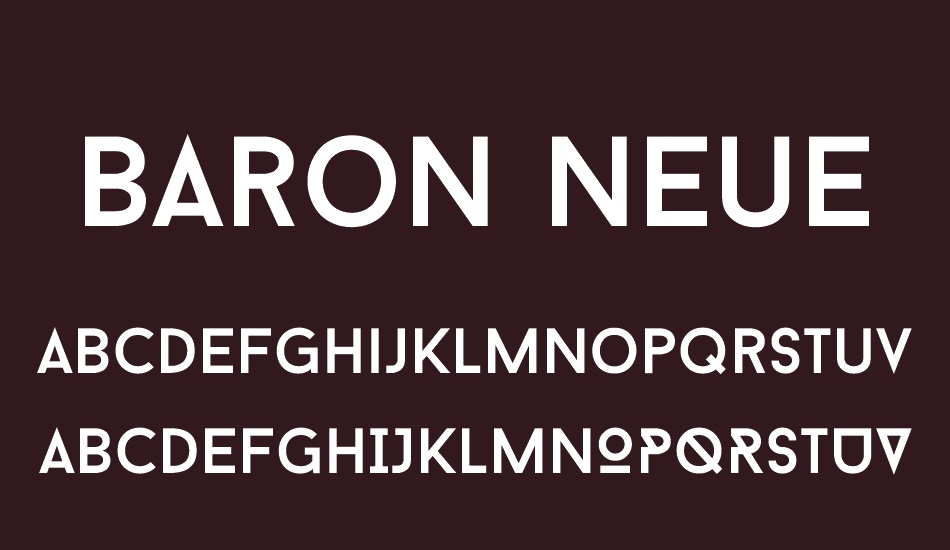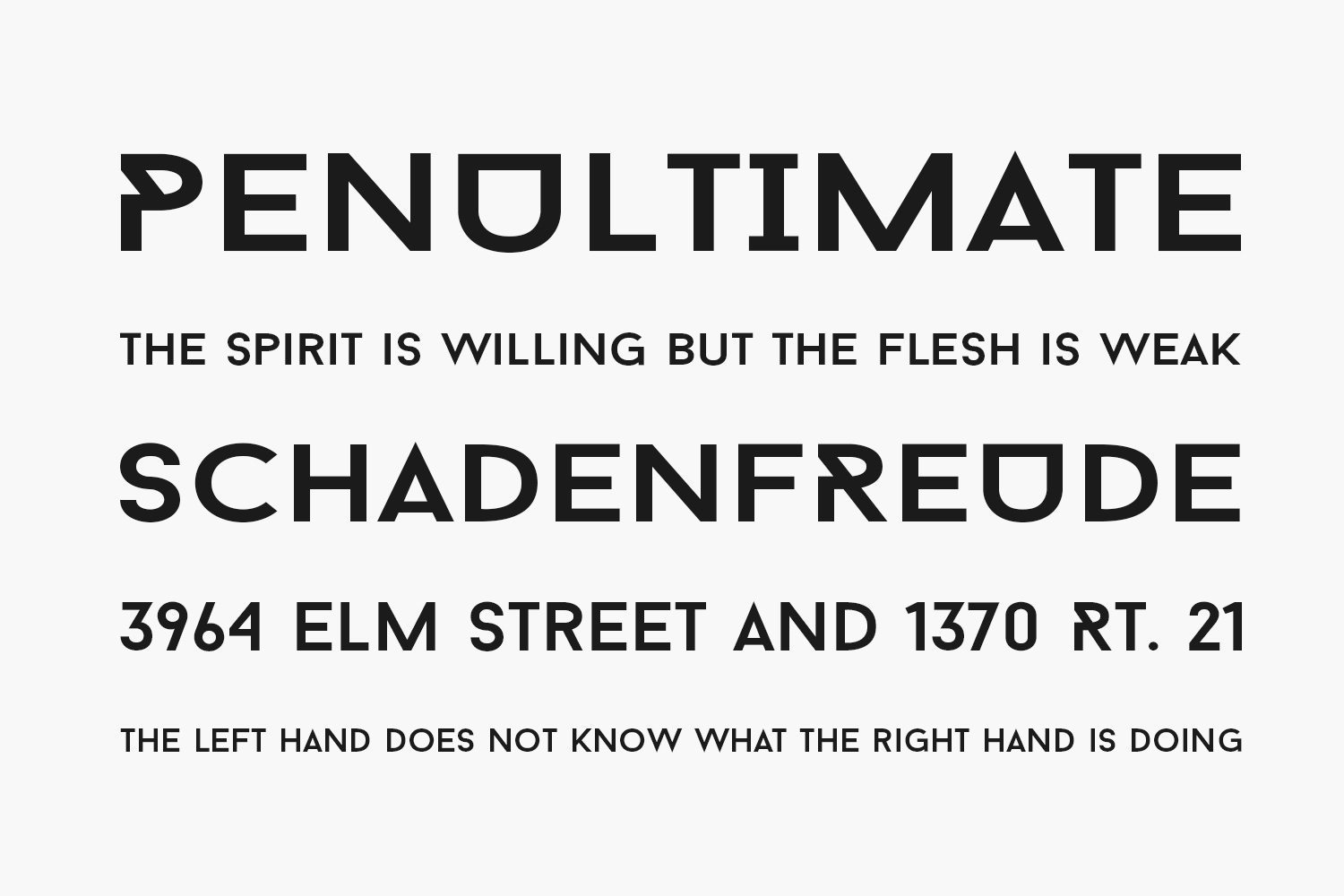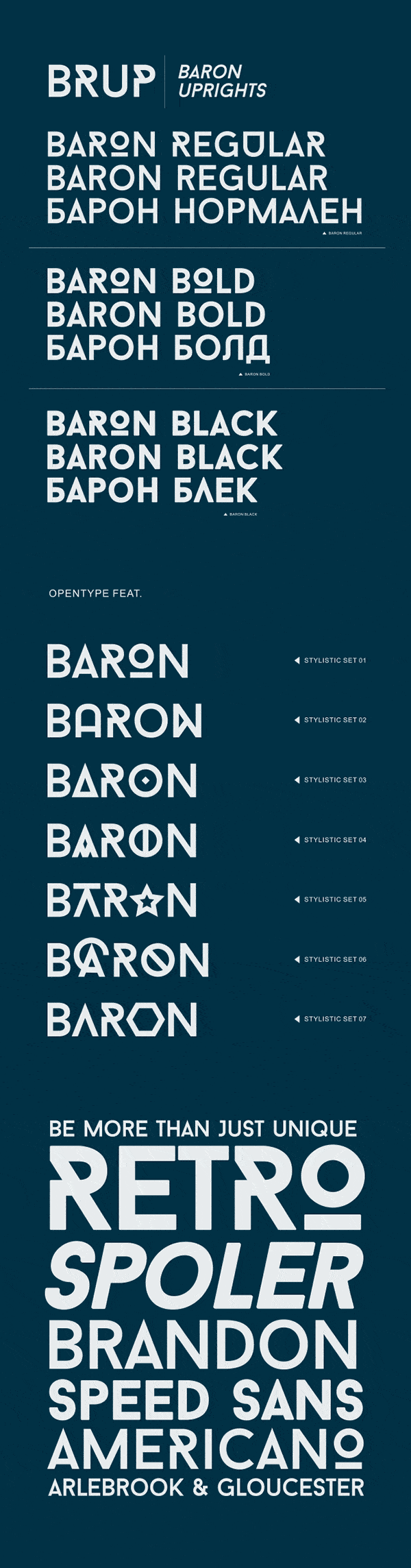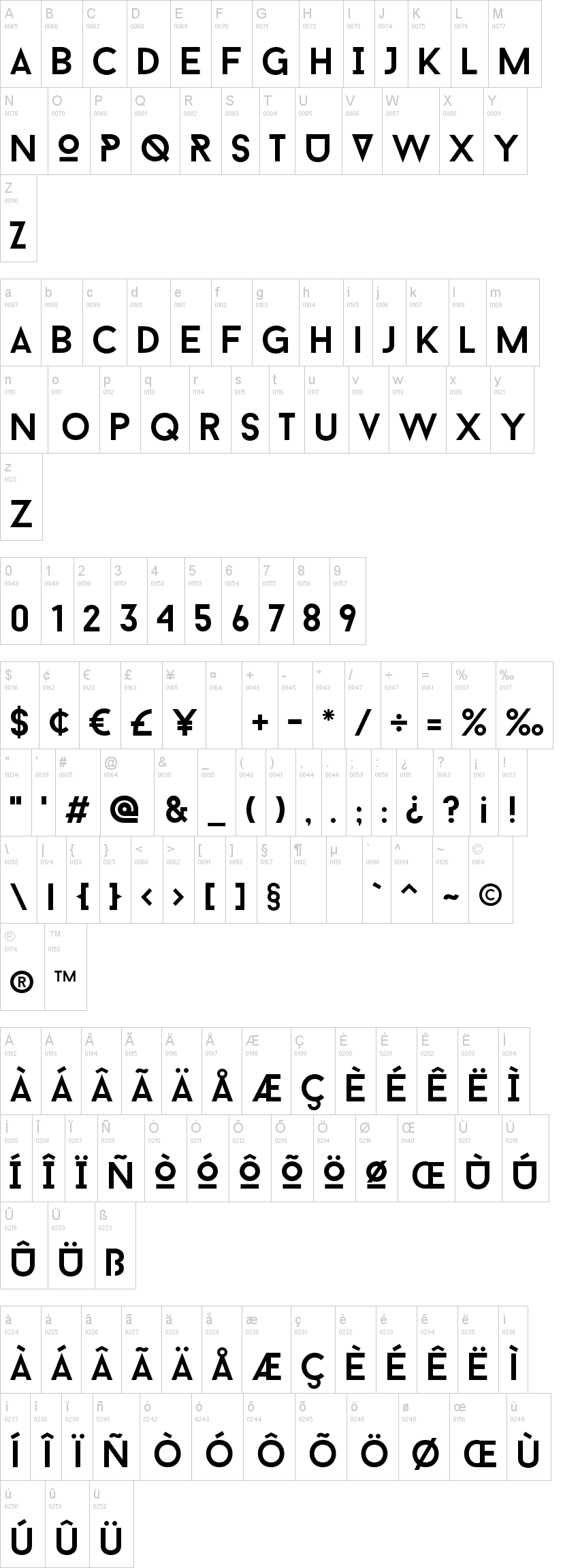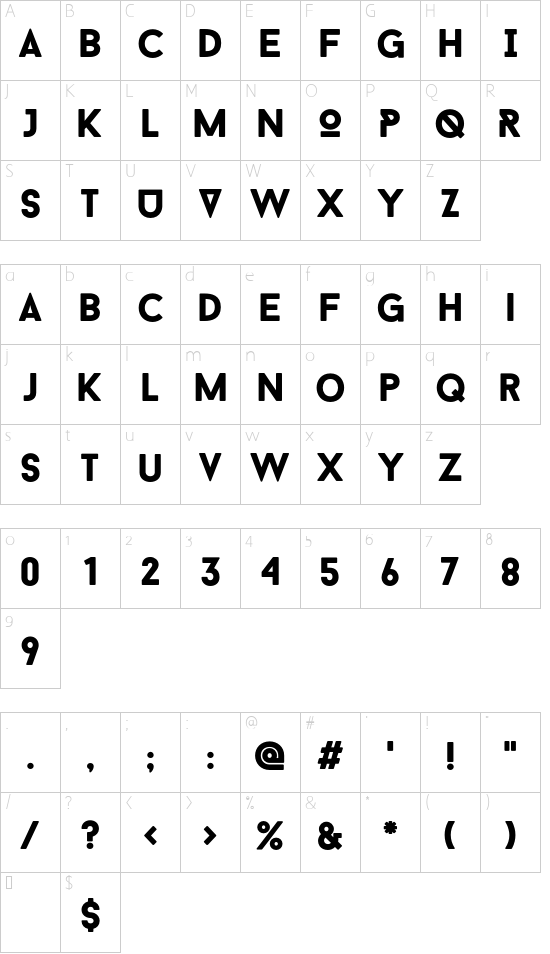
Baron Neue Font
Baron Neue Font - Baron is an free uppercase display typeface inspired by the classic sans serif font. Web baron neue regular font is a font style part of the baron neue type family (6 font styles). Web only for personal use! Font typography is the silent. Baron is an free uppercase display typeface inspired by the classic sans serif font families. Web only for personal use!
Baron is an free uppercase display typeface inspired by the classic sans serif font. Web only for personal use! Baron is an free uppercase display typeface inspired by the classic sans serif font families. Font typography is the silent. Web baron neue regular font is a font style part of the baron neue type family (6 font styles). Web only for personal use!
Baron is an free uppercase display typeface inspired by the classic sans serif font. Web baron neue regular font is a font style part of the baron neue type family (6 font styles). Font typography is the silent. Web only for personal use! Baron is an free uppercase display typeface inspired by the classic sans serif font families.
Web only for personal use! Baron is an free uppercase display typeface inspired by the classic sans serif font. Font typography is the silent. Web only for personal use! Baron is an free uppercase display typeface inspired by the classic sans serif font families.
Font typography is the silent. Web baron neue regular font is a font style part of the baron neue type family (6 font styles). Baron is an free uppercase display typeface inspired by the classic sans serif font families. Web only for personal use! Baron is an free uppercase display typeface inspired by the classic sans serif font.
Web only for personal use! Web baron neue regular font is a font style part of the baron neue type family (6 font styles). Web only for personal use! Baron is an free uppercase display typeface inspired by the classic sans serif font families. Baron is an free uppercase display typeface inspired by the classic sans serif font.
Web baron neue regular font is a font style part of the baron neue type family (6 font styles). Web only for personal use! Baron is an free uppercase display typeface inspired by the classic sans serif font families. Baron is an free uppercase display typeface inspired by the classic sans serif font.
Baron is an free uppercase display typeface inspired by the classic sans serif font. Web baron neue regular font is a font style part of the baron neue type family (6 font styles). Web only for personal use! Baron is an free uppercase display typeface inspired by the classic sans serif font families.
Baron is an free uppercase display typeface inspired by the classic sans serif font families. Web only for personal use! Baron is an free uppercase display typeface inspired by the classic sans serif font. Web only for personal use! Web baron neue regular font is a font style part of the baron neue type family (6 font styles).
Web baron neue regular font is a font style part of the baron neue type family (6 font styles). Web only for personal use! Font typography is the silent. Baron is an free uppercase display typeface inspired by the classic sans serif font families.
Font typography is the silent. Web only for personal use! Baron is an free uppercase display typeface inspired by the classic sans serif font. Baron is an free uppercase display typeface inspired by the classic sans serif font families.
Font typography is the silent. Web baron neue regular font is a font style part of the baron neue type family (6 font styles). Baron is an free uppercase display typeface inspired by the classic sans serif font families. Web only for personal use! Web only for personal use!
Baron is an free uppercase display typeface inspired by the classic sans serif font families. Font typography is the silent. Web only for personal use! Web baron neue regular font is a font style part of the baron neue type family (6 font styles). Web only for personal use!
Baron Is An Free Uppercase Display Typeface Inspired By The Classic Sans Serif Font.
Baron is an free uppercase display typeface inspired by the classic sans serif font families. Font typography is the silent. Web only for personal use! Web only for personal use!